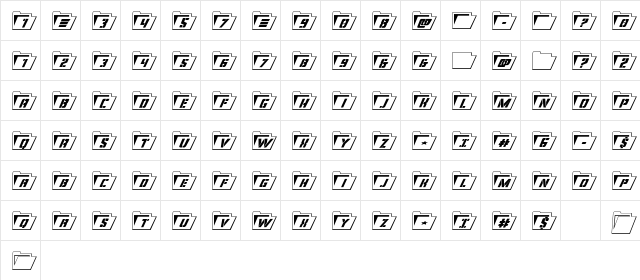
Complete Eyes Only Outline Semi-Condensed Italic glyph index. Displaying only characters natively supported by Eyes Only Outline Semi-Condensed Italic font.
Eyes Only Outline Semi-Condensed Italic is built around its visual character rather than neutral utility - its distinctive forms are designed to make an impression at display sizes. The slanted form adds forward momentum and visual energy.